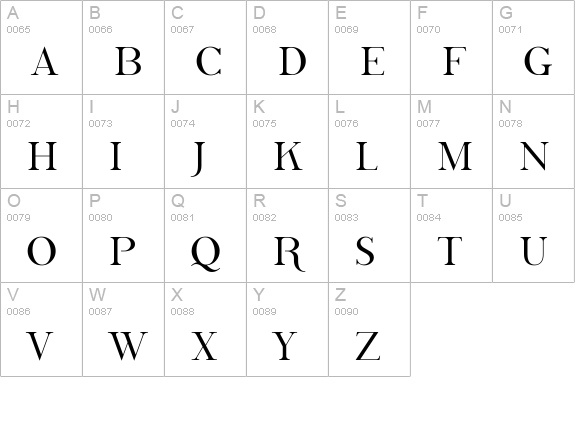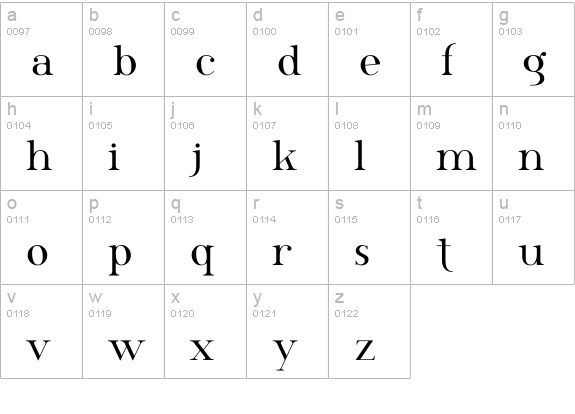
The Phosphorus Selenide font is a modern and stylish typeface that exudes elegance and sophistication. Its sleek lines and sharp edges give it a contemporary and eye-catching appeal, making it perfect for a wide range of design projects. With its unique blend of classic and modern elements, Phosphorus Selenide font is sure to make a bold statement in any design. This versatile font is suitable for various uses, from branding and advertising to packaging and social media graphics. Its clean and readable design ensures that your message will be conveyed clearly and effectively. Whether you're creating a logo, poster, or website, the Phosphorus Selenide font will elevate your design and leave a lasting impression. Best of all, the Phosphorus Selenide font is available for free download at FontsMarket.com. This means you can easily access this stunning font and use it in your projects without any cost. Don't miss out on the opportunity to enhance your designs with the Phosphorus Selenide font – download it today and start creating beautiful and impactful designs!